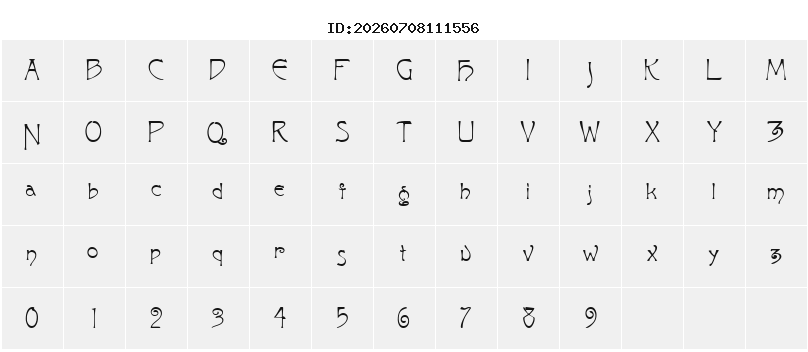
• Font Name: Dainty
• Font ID: Altsys Fontographer 4.0.3 Curetana
• Full Font Name: Dainty
• Version: Altsys Fontographer 4.0.3 10/4/97
• PostScript Name: Dainty
• Character Count: 106
• Copyright: Aldus: based On Scriptoriums Curetana
About Dainty.ttf
Dainty.ttf is a modern, elegant sans-serif font designed for ultimate readability and visual harmony. Perfect for branding, headlines, web design, and print materials.